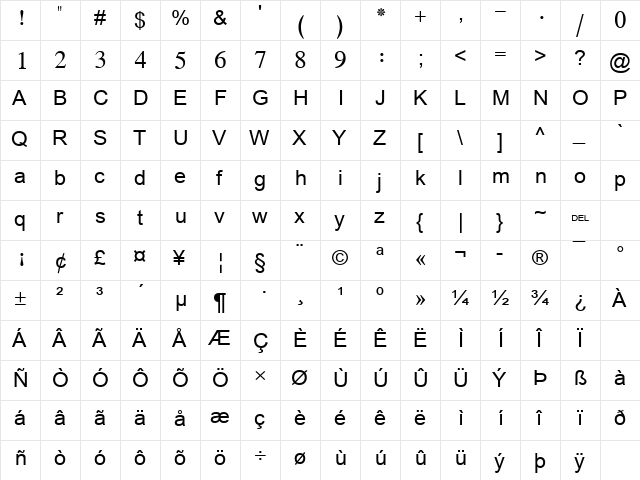
Simplified Arabic Regular
Design Context for Simplified Arabic Typeface
Simplified Arabic offers clean, dependable letterforms without strong stylistic allegiance, making it a practical choice for designers who need flexibility.